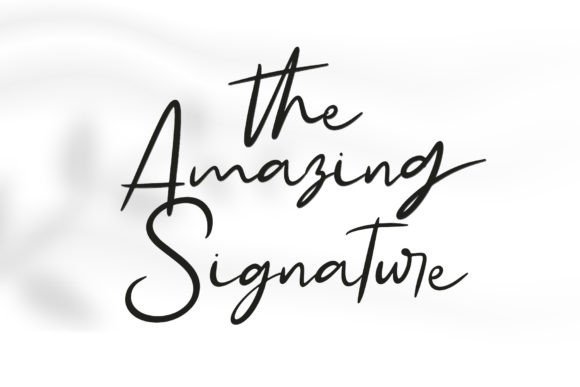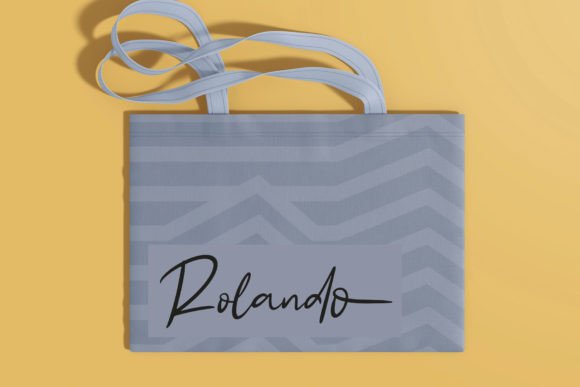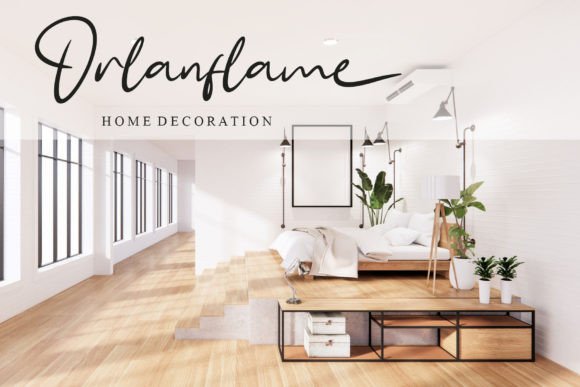
Introduction to Rotherdola Font
Rotherdola is a simple and quirky-looking handwritten font.
It has a classy, elegant, and modern look that you can use for logos, branding, invitations, stationery, wedding designs, social media posts, and much more This font is PUA encoded, which means you can access all of the glyphs and swashes with ease.
Rotherdola Font offers exceptional quality and versatility, making it a valuable addition to your design toolkit. Whether you’re creating for personal projects or commercial use, Rotherdola Font delivers professional results.